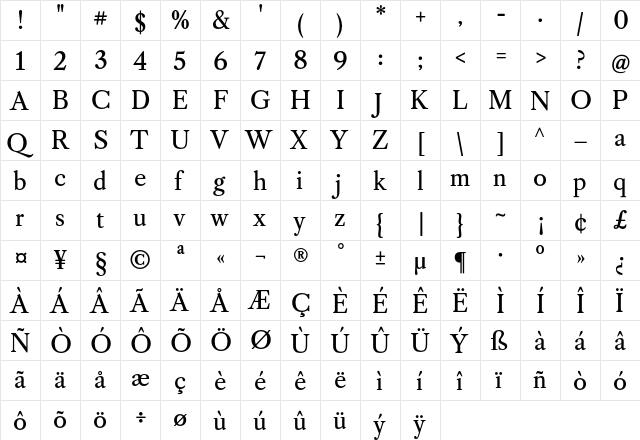
Caslon OS Regular
Design Context for Caslon OS Typeface
Caslon OS is a composed and adaptable typeface that performs quietly and consistently across a wide range of design contexts.